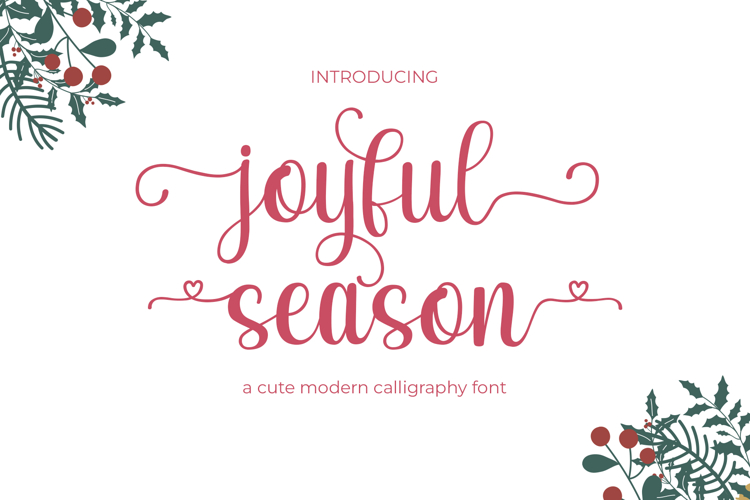
Joyful Season is a cute modern calligraphy font that blends holiday charm with romantic warmth. Featuring beautiful alternates, ligatures, and stylistic sets (ss01–ss04), it’s perfect for Christmas crafts, Valentine cards, mugs, and gift tags. Add love and joy to every season with this sweet handwritten font!